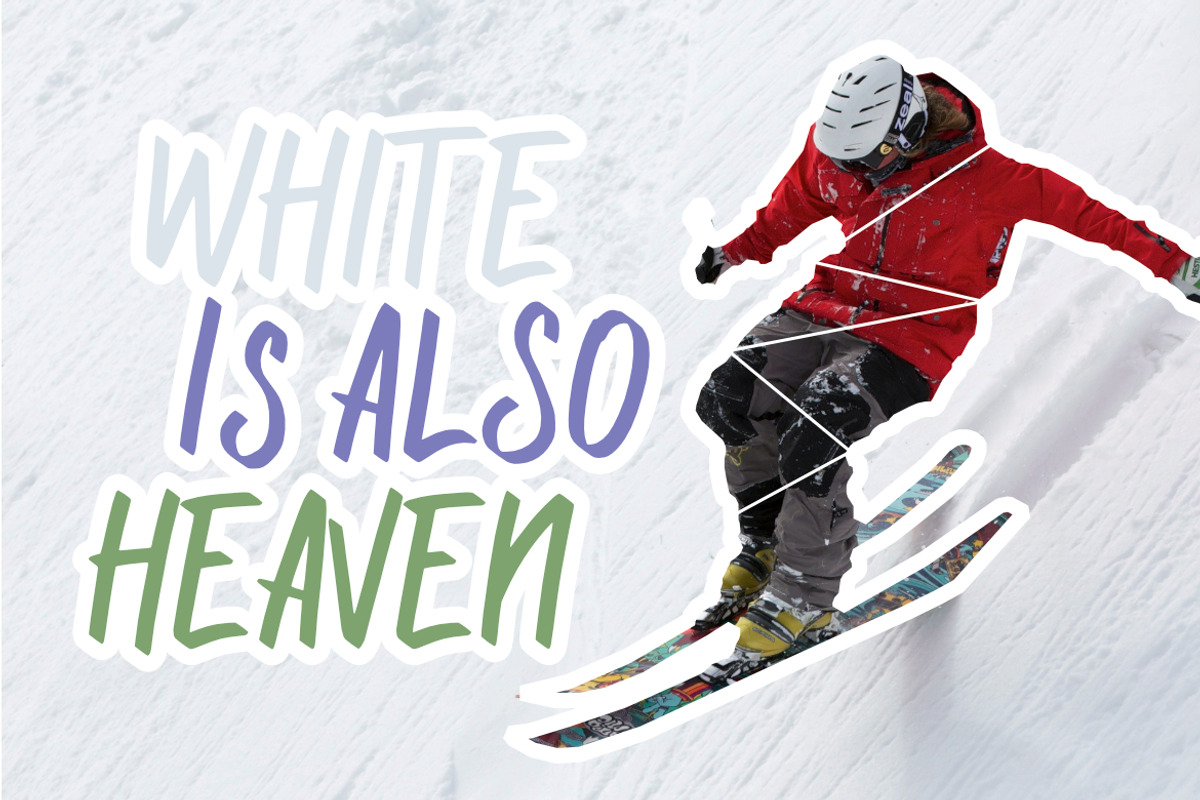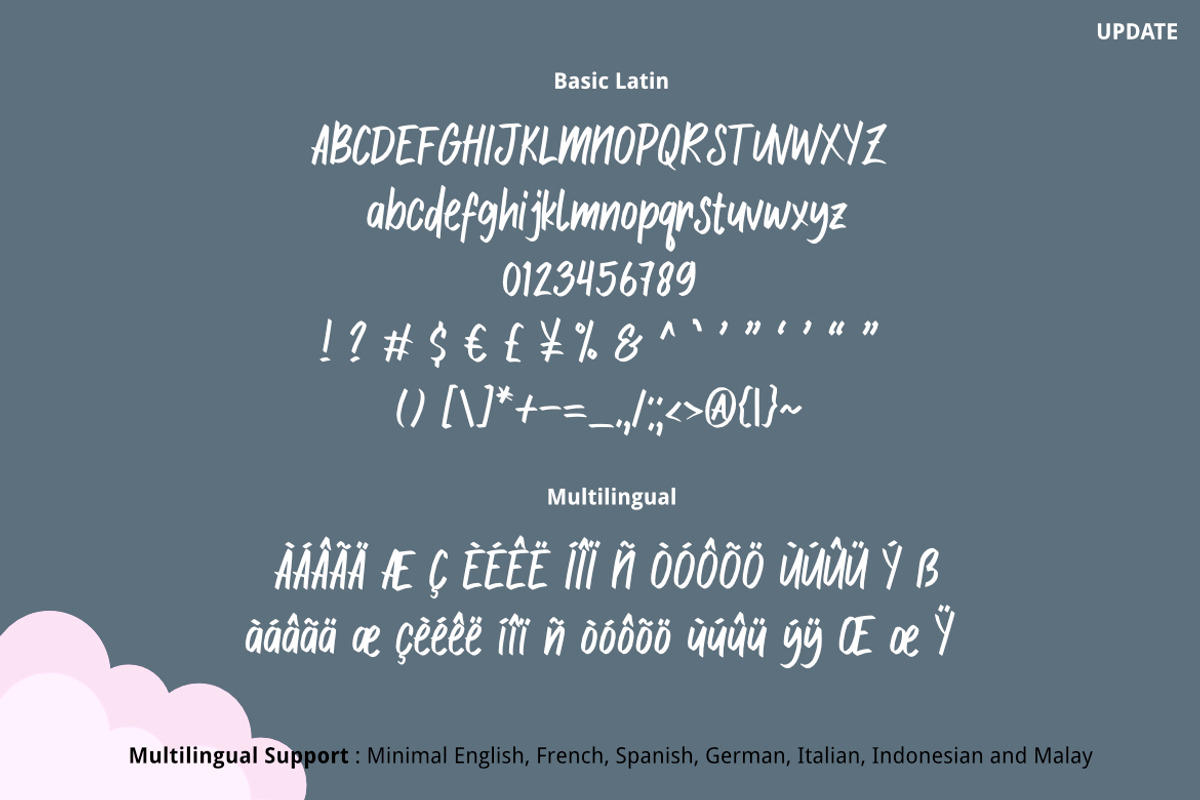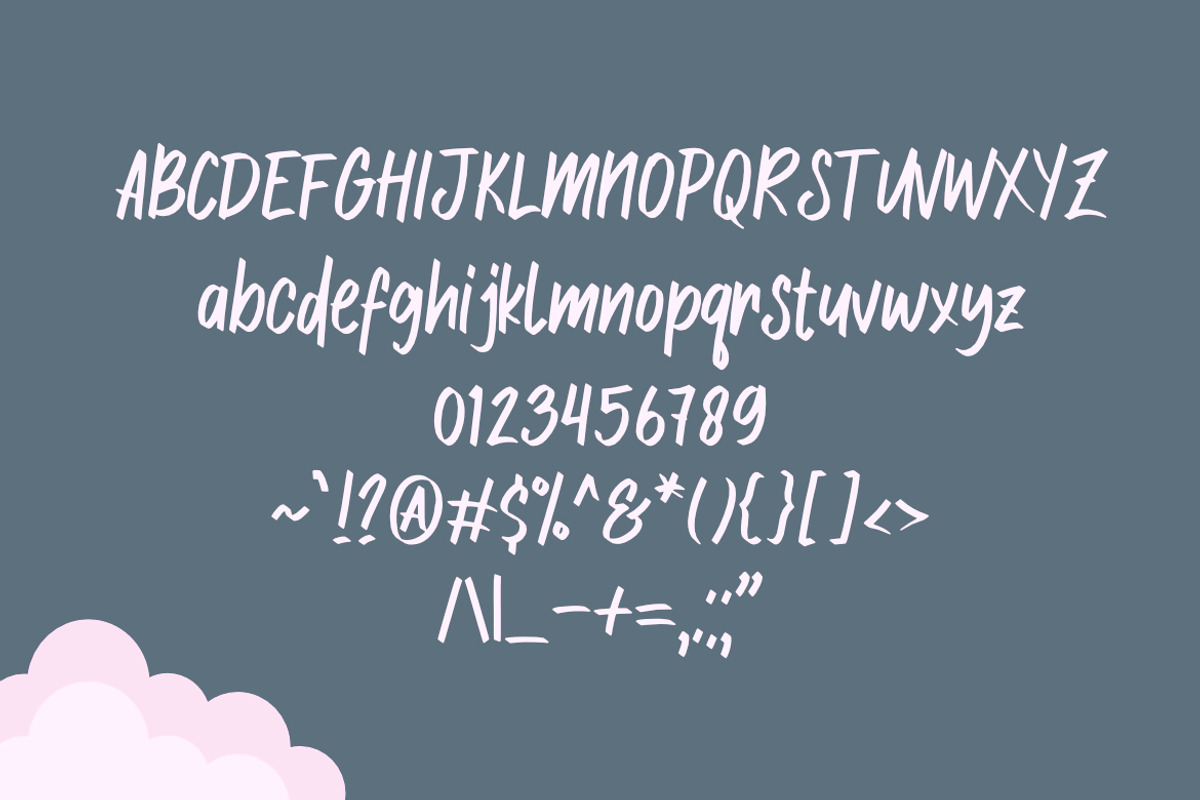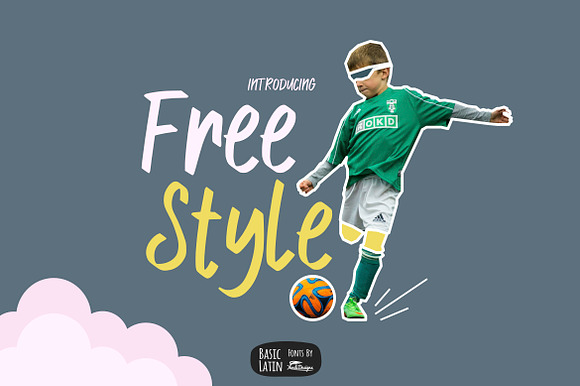
Simple marker font , suitable for many project , quotes, logo , doodle, heading , title etc.
Unicode Basic Latin (Standard English character , number, punctuation)
9 19 2020 : Multilingual Support Basic English, Spanish, German, French, Italian